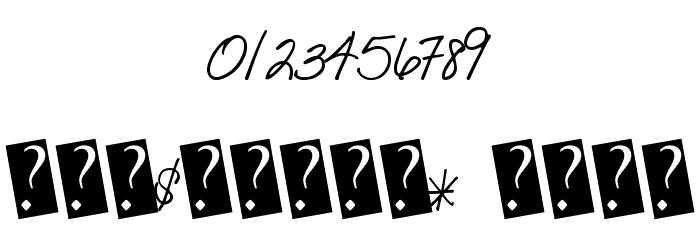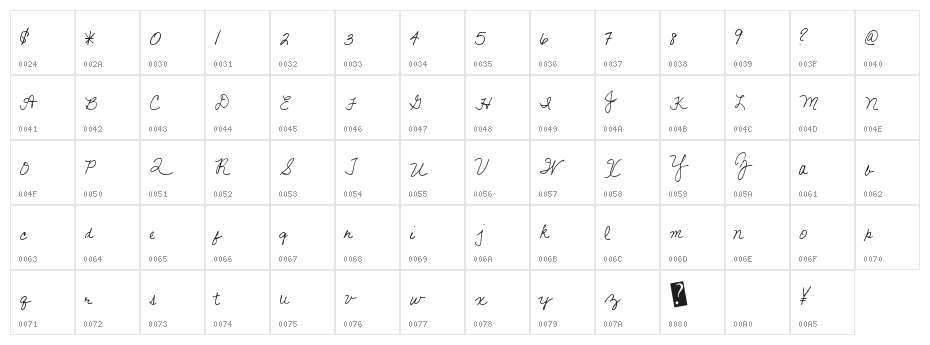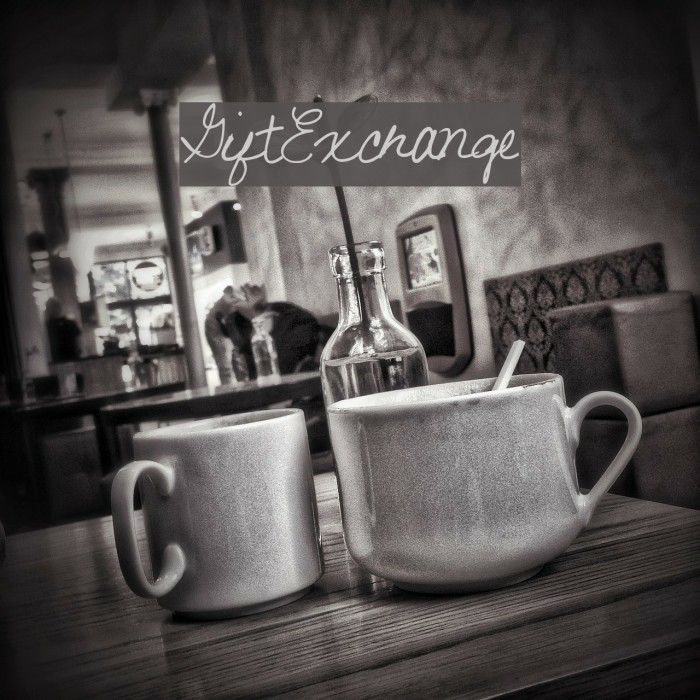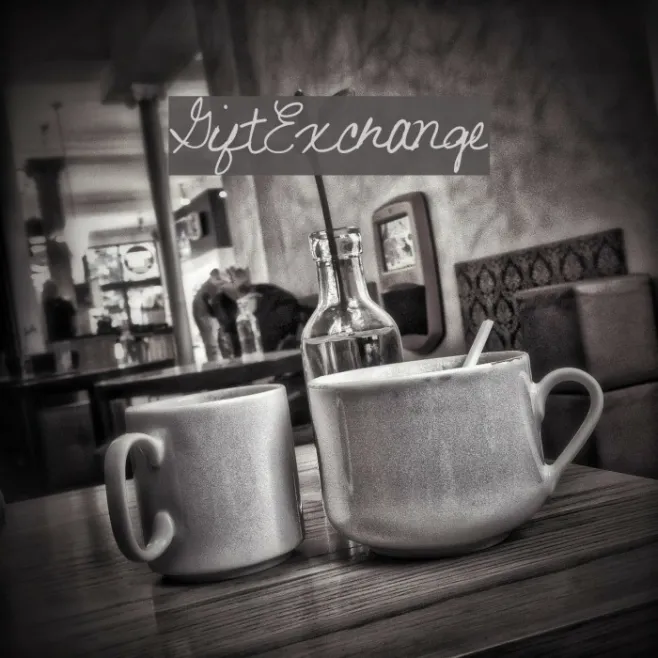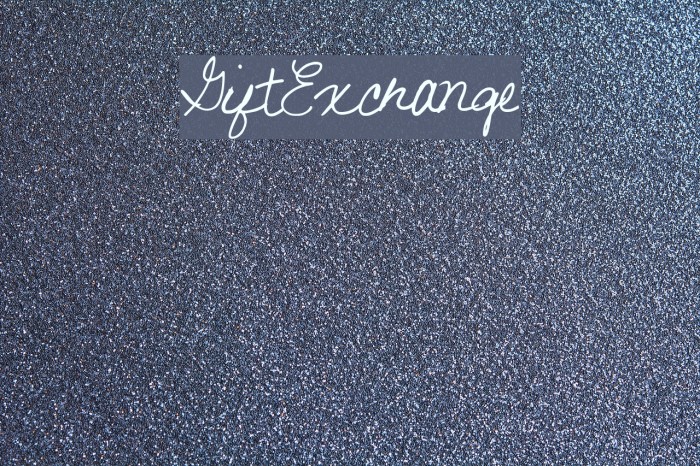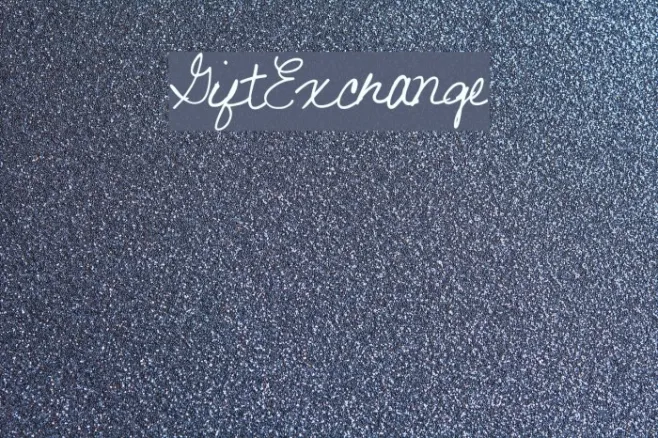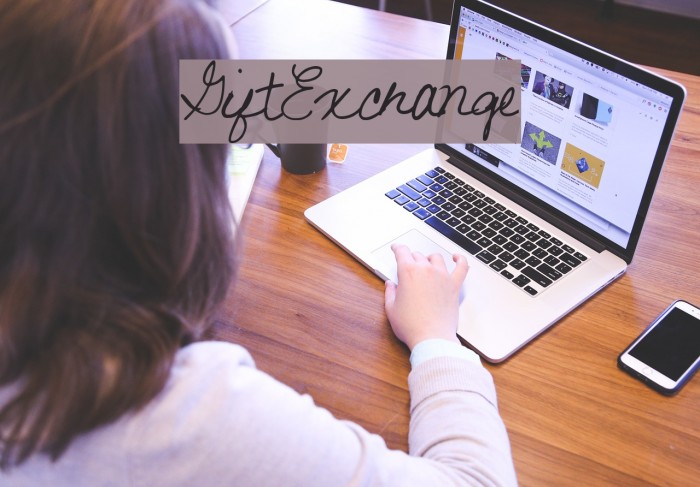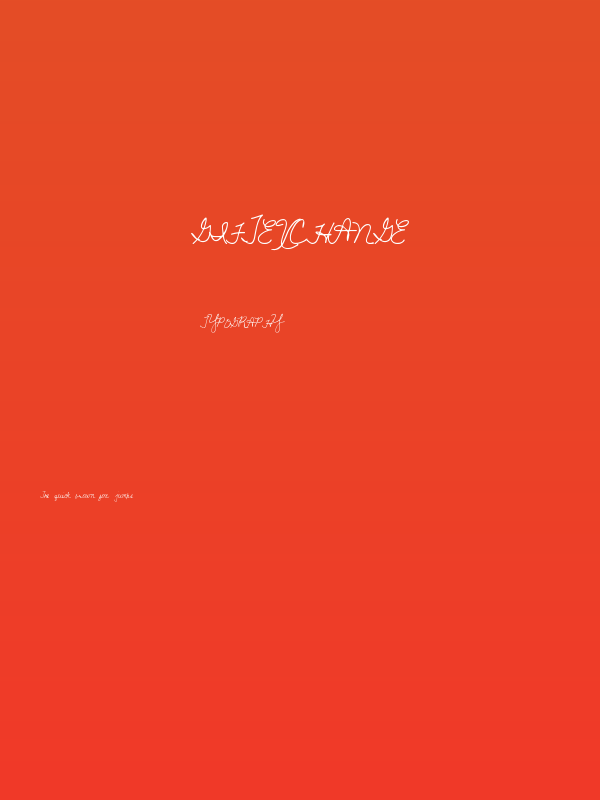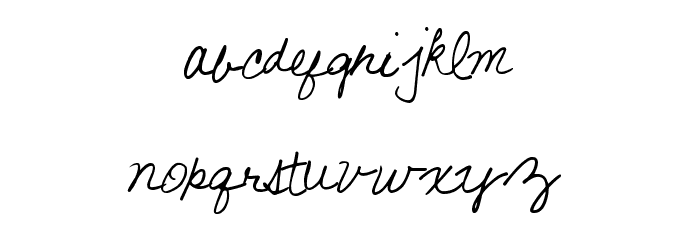
GiftExchange Font
GiftExchange Description
This font features an elegant, flowing script style that mimics natural handwriting with a touch of sophistication. The characters are interconnected, creating a seamless and fluid appearance. The uppercase letters are ornate and slightly larger than the lowercase, which are more subdued yet maintain the same graceful curves. The numerals are consistent with the overall style, offering a cohesive look. Special characters are included, maintaining the script's fluidity and charm. This font is ideal for projects that require a personal, elegant touch.